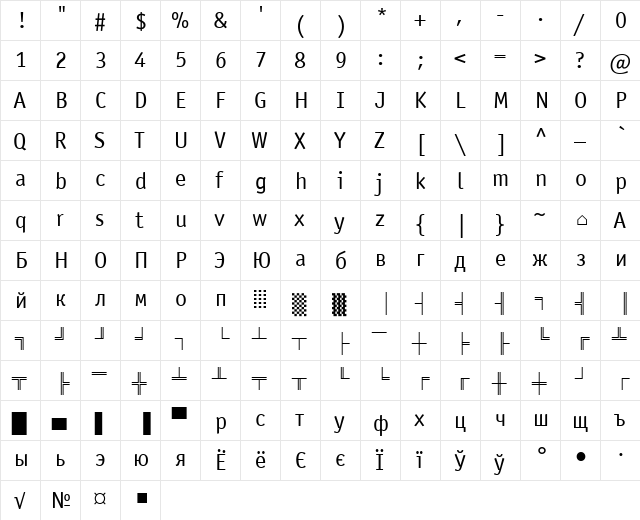
OfficinaSansDOSCTT Regular
Design Context for OfficinaSansDOSCTT Typeface
OfficinaSansDOSCTT offers clean, dependable letterforms without strong stylistic allegiance, making it a practical choice for designers who need flexibility.